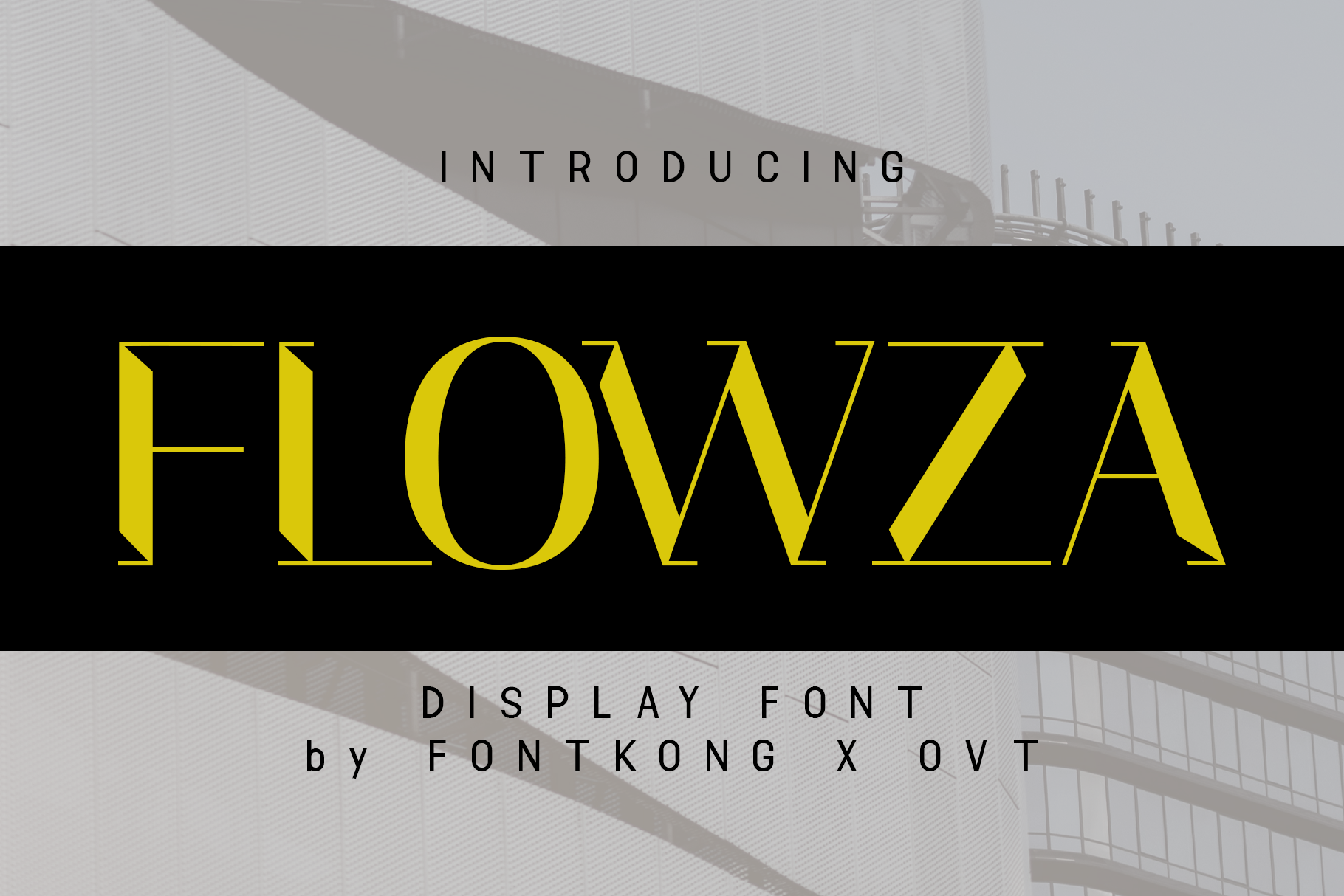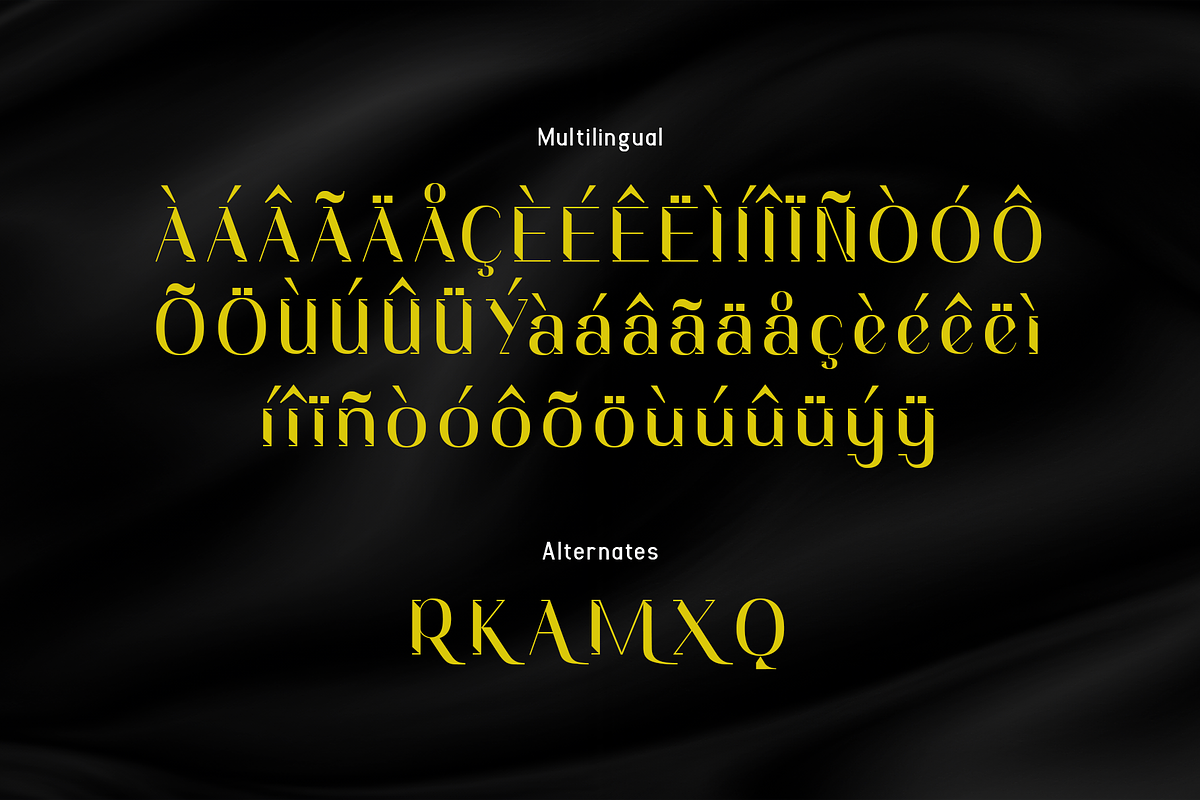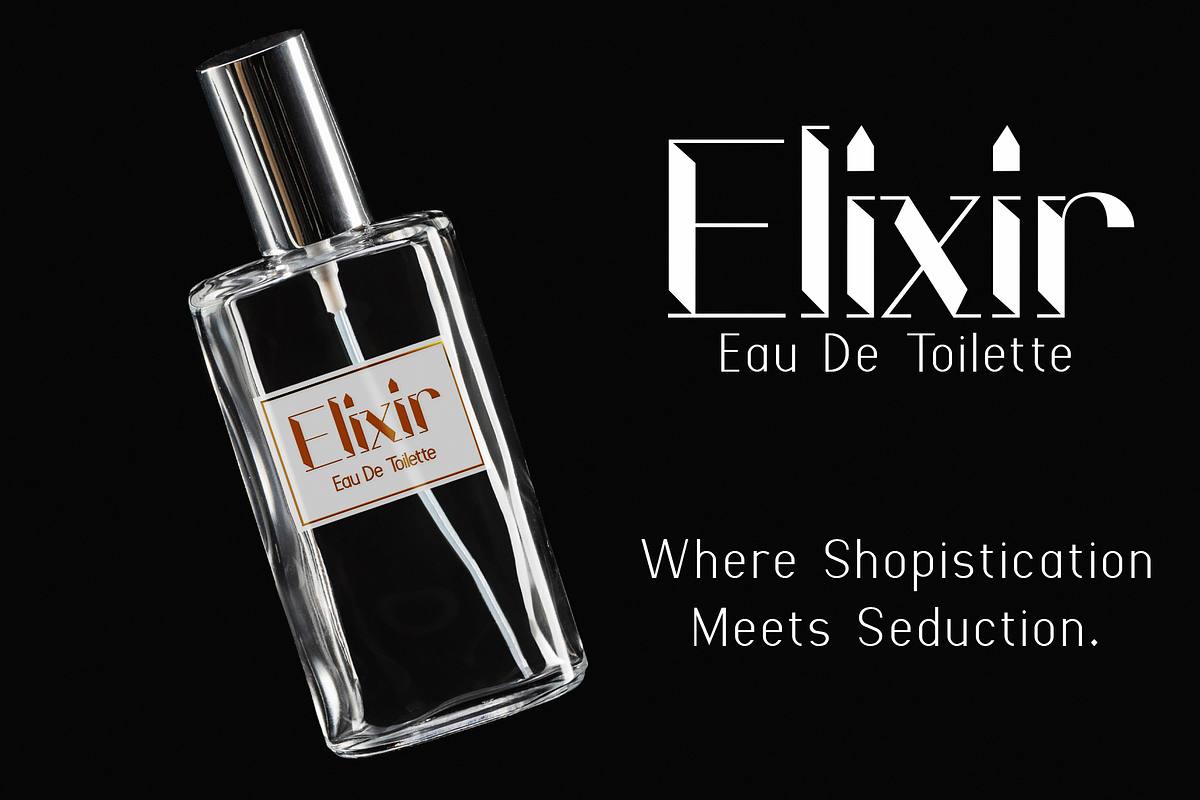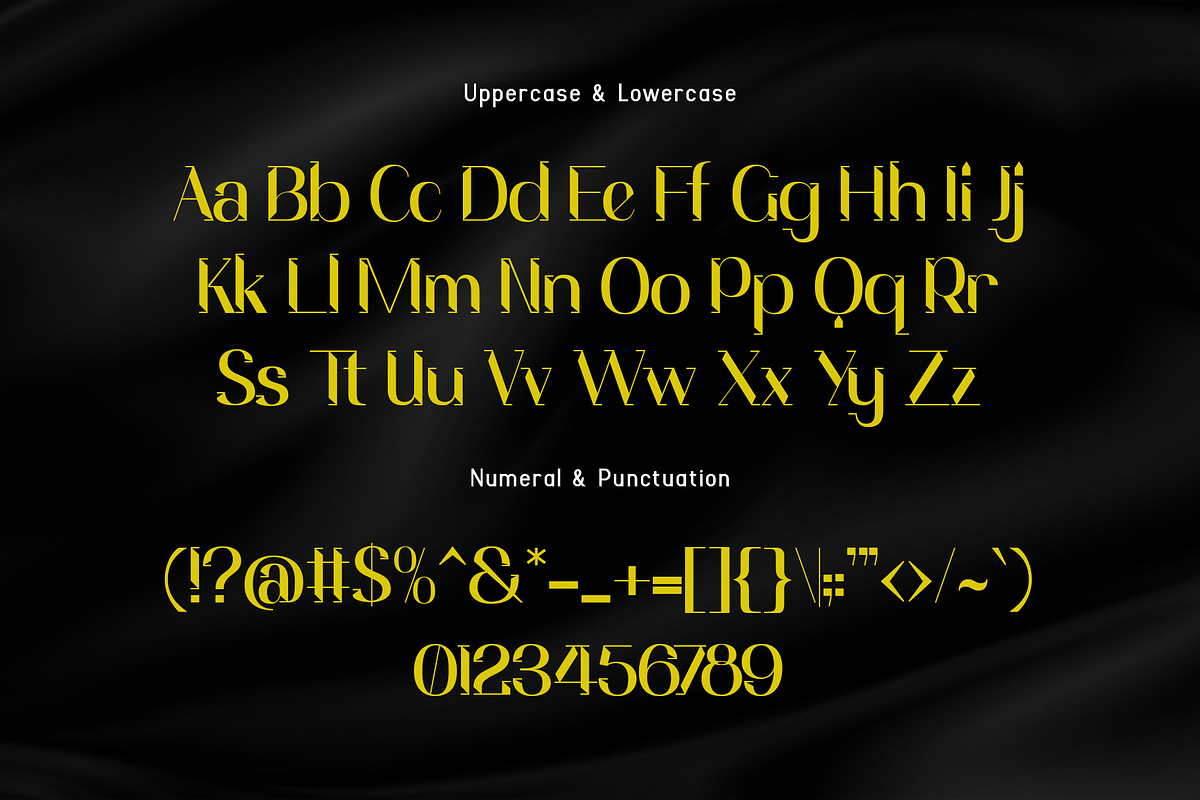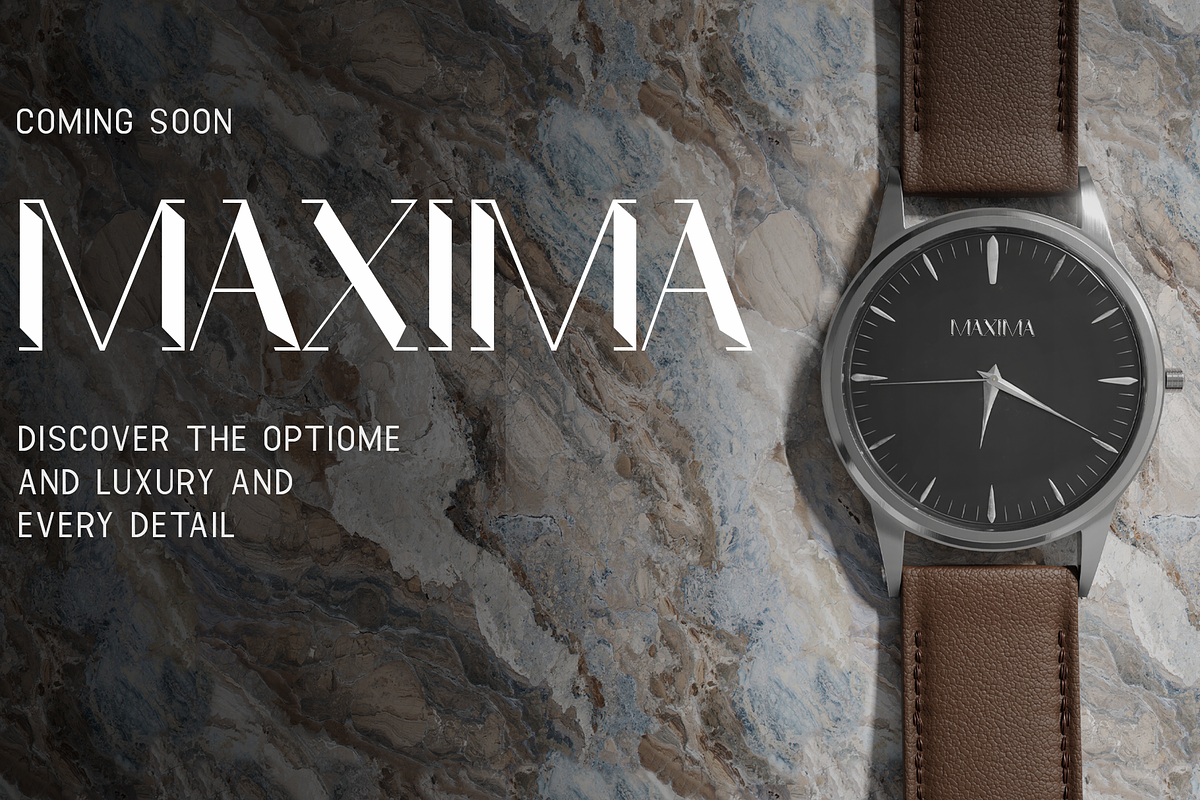
Flowza - A Dynamic Display Font
Flowza is a bold and dynamic display font designed to make a striking impact in your design projects. With its unique shapes and contemporary style, Flowza is perfect for eye-catching headlines, creative posters, vibrant branding, and standout packaging. This font combines modern aesthetics with a playful touch, ensuring your work captures attention and stands out with flair.
Crafted with creativity in mind, Flowza features distinctive characters that offer excellent readability and visual appeal. Its energetic design makes it ideal for display purposes, providing a lively and memorable presence. The font’s versatility allows it to adapt seamlessly to various design contexts, from digital screens to printed materials, making it a valuable asset for any designer aiming to create bold and impactful visuals.
Elevate your design projects with Flowza, a font that embodies the essence of modern display typography. Its unique style and adaptability make it an essential addition to any designer’s toolkit for crafting vibrant and engaging designs. Enhance your work with Flowza and experience the power of dynamic display fonts.